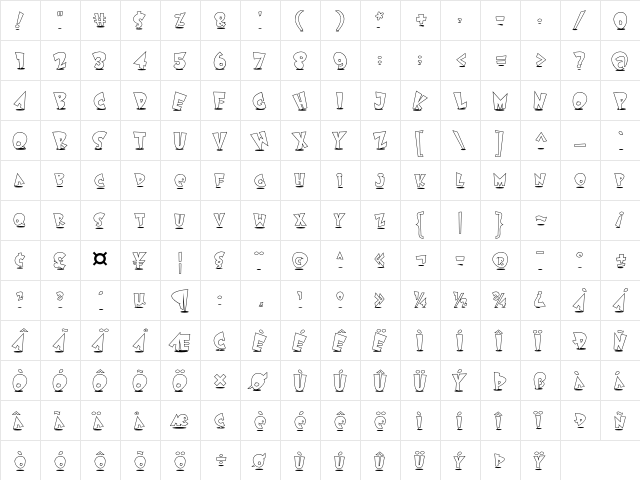
Astro White Std ITC Regular
| Foundry | International Typeface Corporation |
| Designer | Sasa Petricic |
Design Context for Astro White Std ITC Typeface
Astro White Std ITC is a composed and adaptable typeface that performs quietly and consistently across a wide range of design contexts.